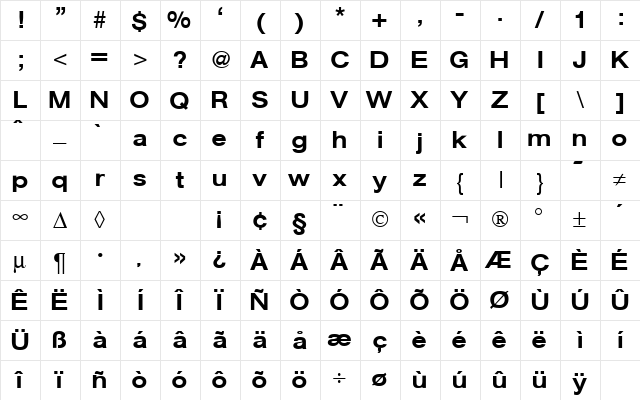
AtkinsExtendedMedium Regular
AtkinsExtendedMedium Family
Design Context for AtkinsExtendedMedium
AtkinsExtendedMedium is a composed and adaptable typeface that performs quietly and consistently across a wide range of design contexts.